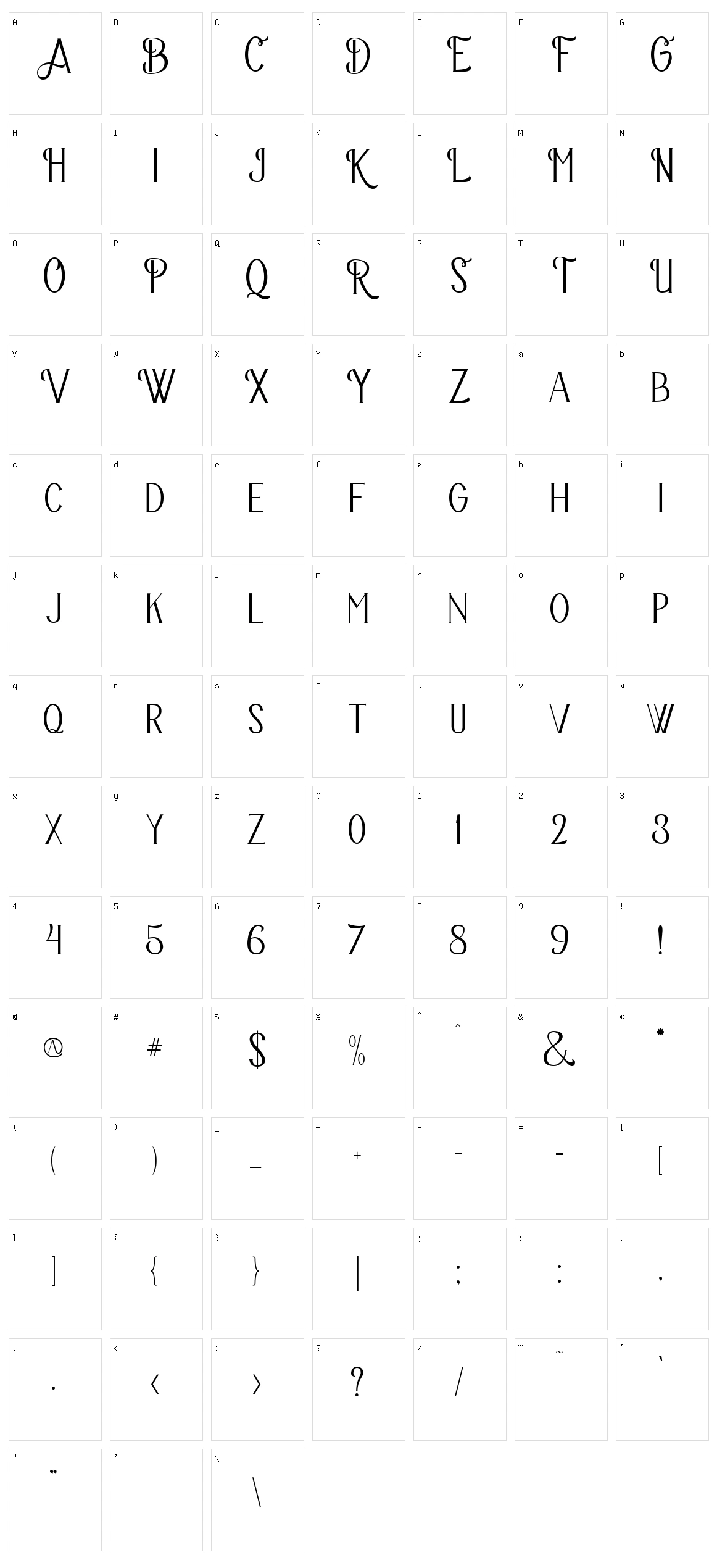
The free font The Bravery is carefully designed by Pollux of Geminorum, showcasing a thoughtful balance of creativity and usability and falls under the Retro font style. When you download the ZIP file, it contains only 53.33 KB of font files, making it lightweight and quick to download. Please review the license details below to understand permitted usage and distribution rights. If license information is not available, we recommend using this font for personal projects only or contacting the author directly for commercial usage permissions.